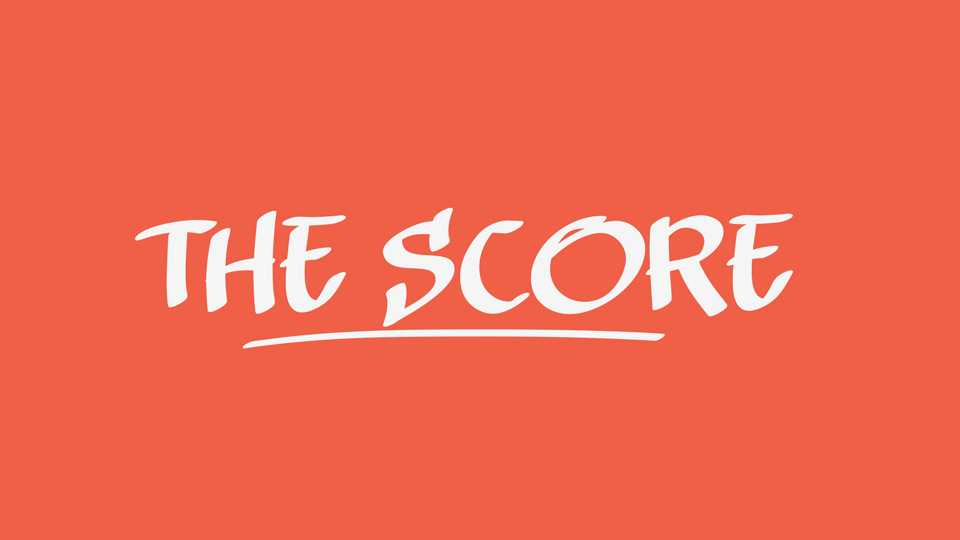
Download The Score font, a dynamic handwritten marker typeface that injects your designs with a burst of bold spontaneity and creative energy. The Score font features an expressive and energetic design, with each letter exuding a sense of lively personality.